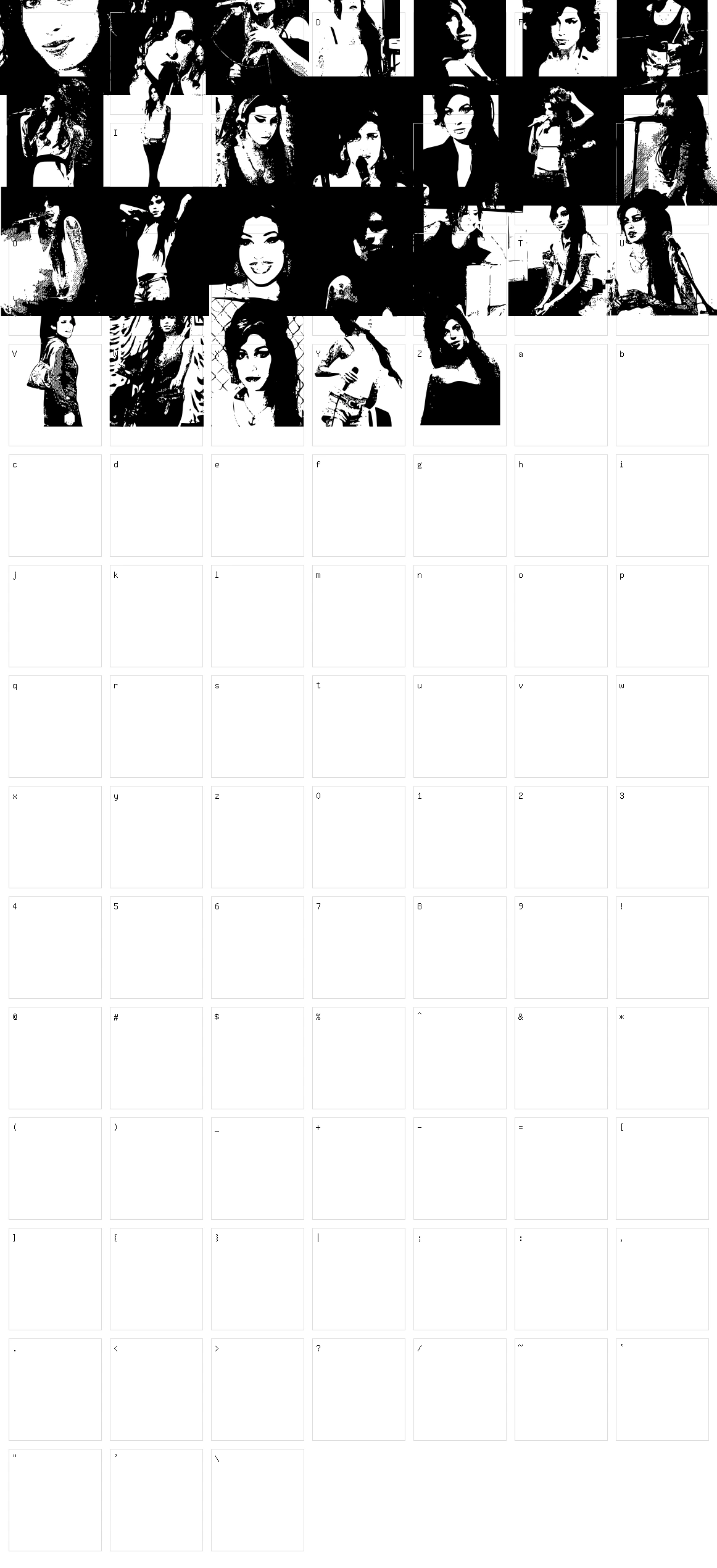
AmyBats are a tribute to Amy Winehouse, who, in my opinion, is the most important female vocalist since Janis Joplin, and possibly as far back as Billie Holiday. This poet diva fashionista is the best thing to happen to popular music since Nirvana. Unfortunately, the flame that burns twice as bright burns half as long. I guess to truly sing the Blues, one must live them first. Here's hoping she's able to overcome her personal demons, and continue to make the music that matters. I've tried to capture as many different sides of this lady as possible. You can decide for yourself if I've succeeded.